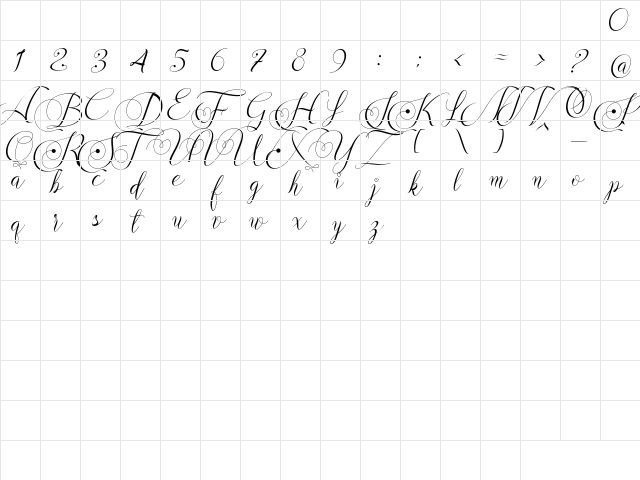
Delliavirra Personal Use Only Regular
| Designer | Ahmad Rofingi |
Design Context for Delliavirra Personal Use Only Typeface
Delliavirra Personal Use Only is a composed and adaptable typeface that performs quietly and consistently across a wide range of design contexts.